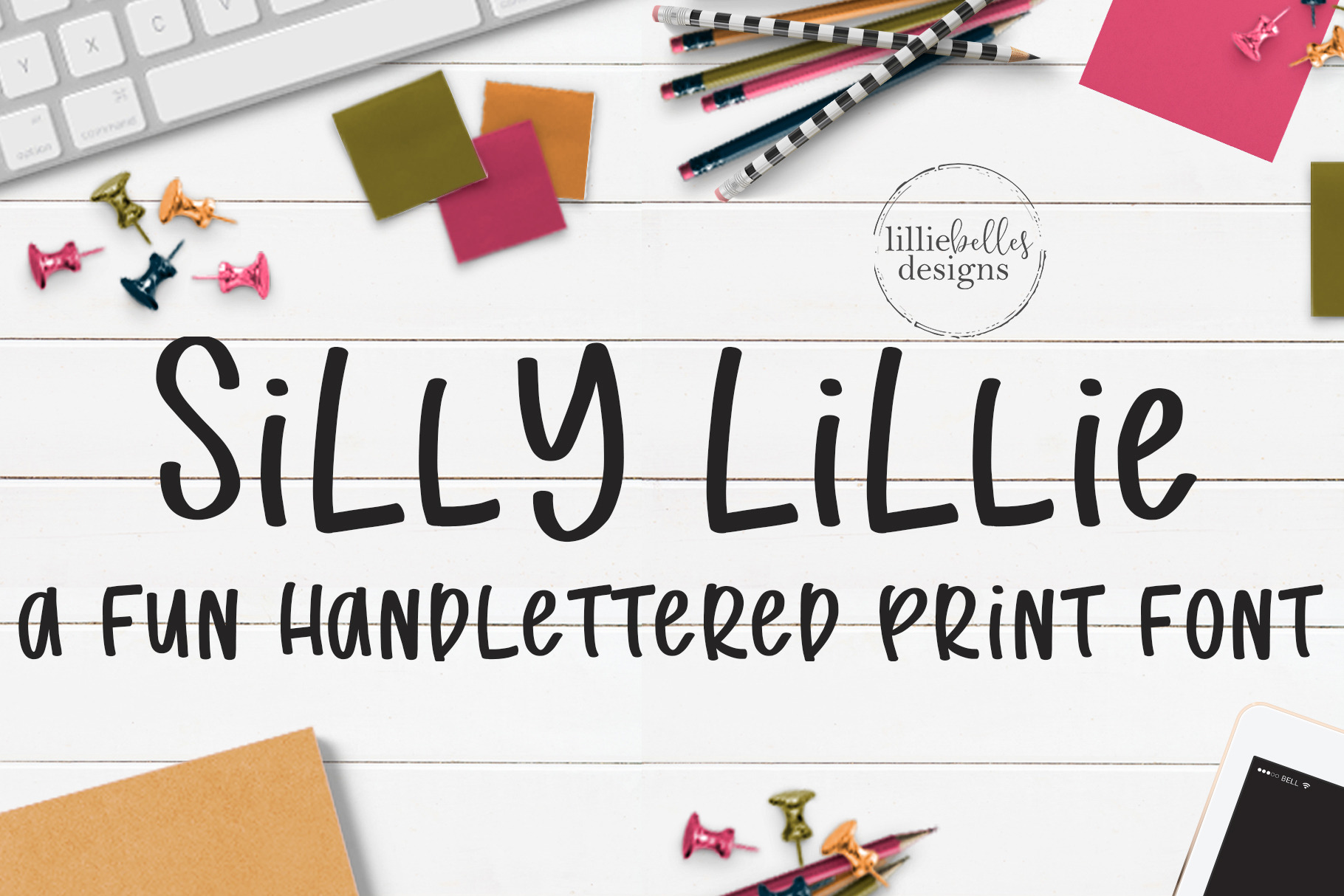
Silly Lillie:A fun handlettered font
Silly Lillie - a fun handlettered font
Introducing Silly Lillie! Use all uppercase, all lowercase, or combine the two for a fun look. Check out the listing images for examples.